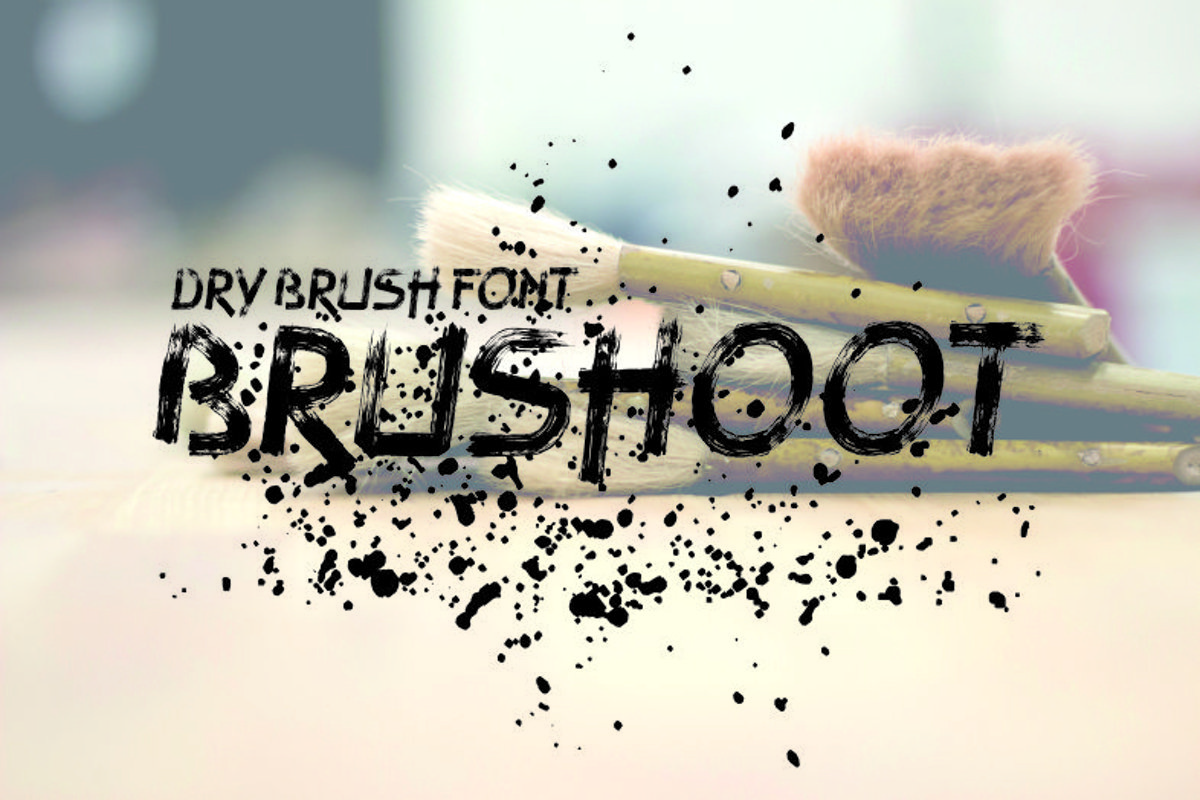
Brushoot
brushoot
Brushoot is modern font. Brushoot is perfect to using for Display, T-Shirt ,Logo, Latterhead, Invitation, Poster, Lables and many more.